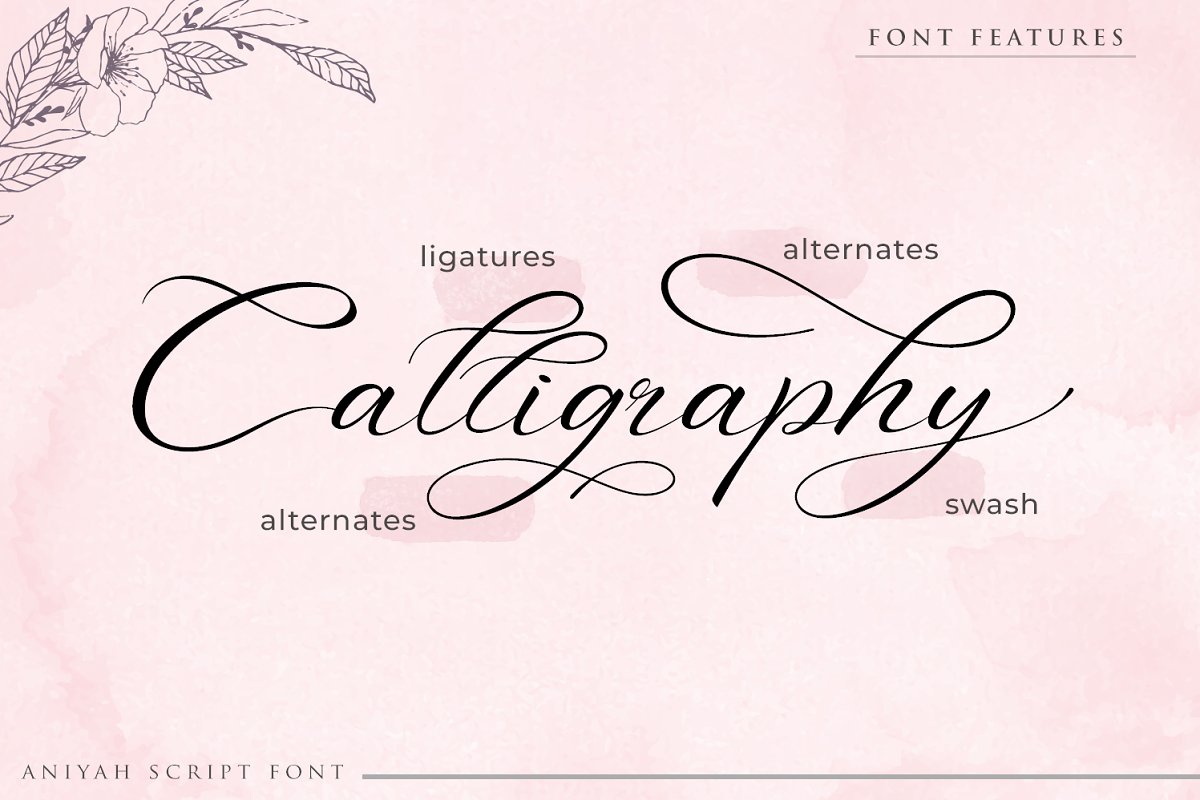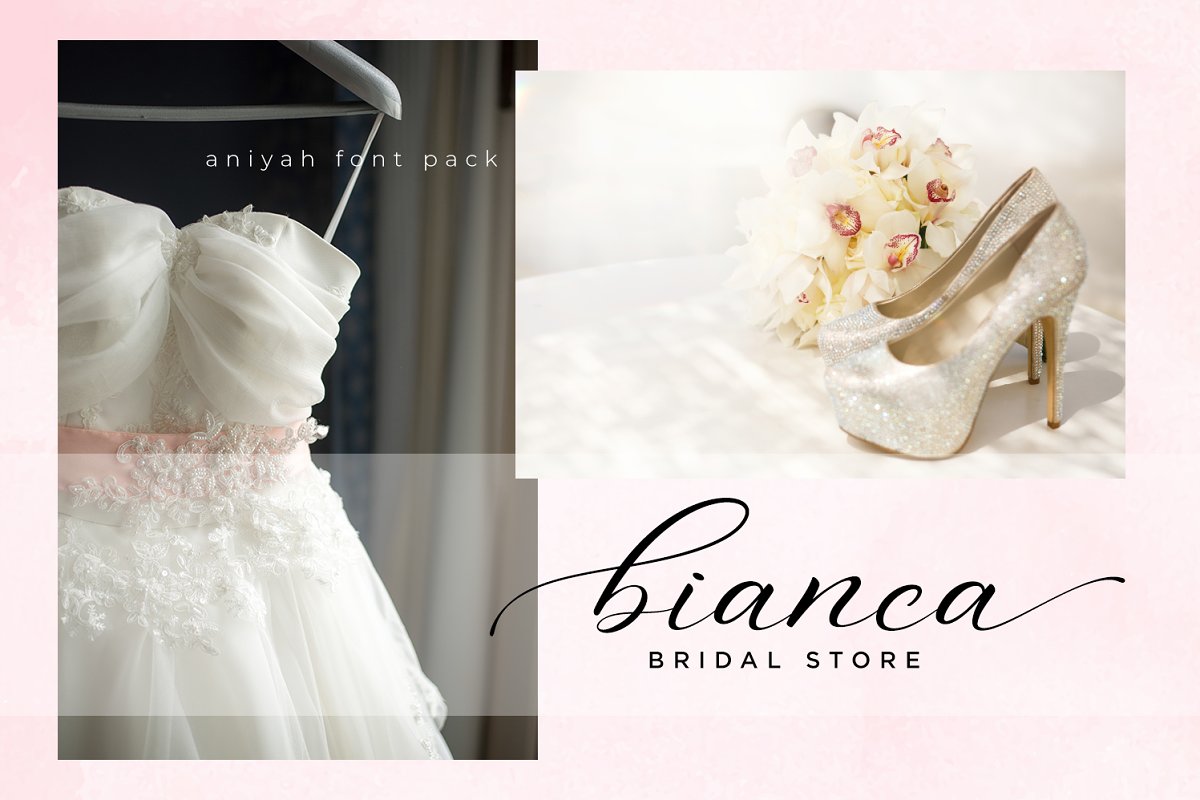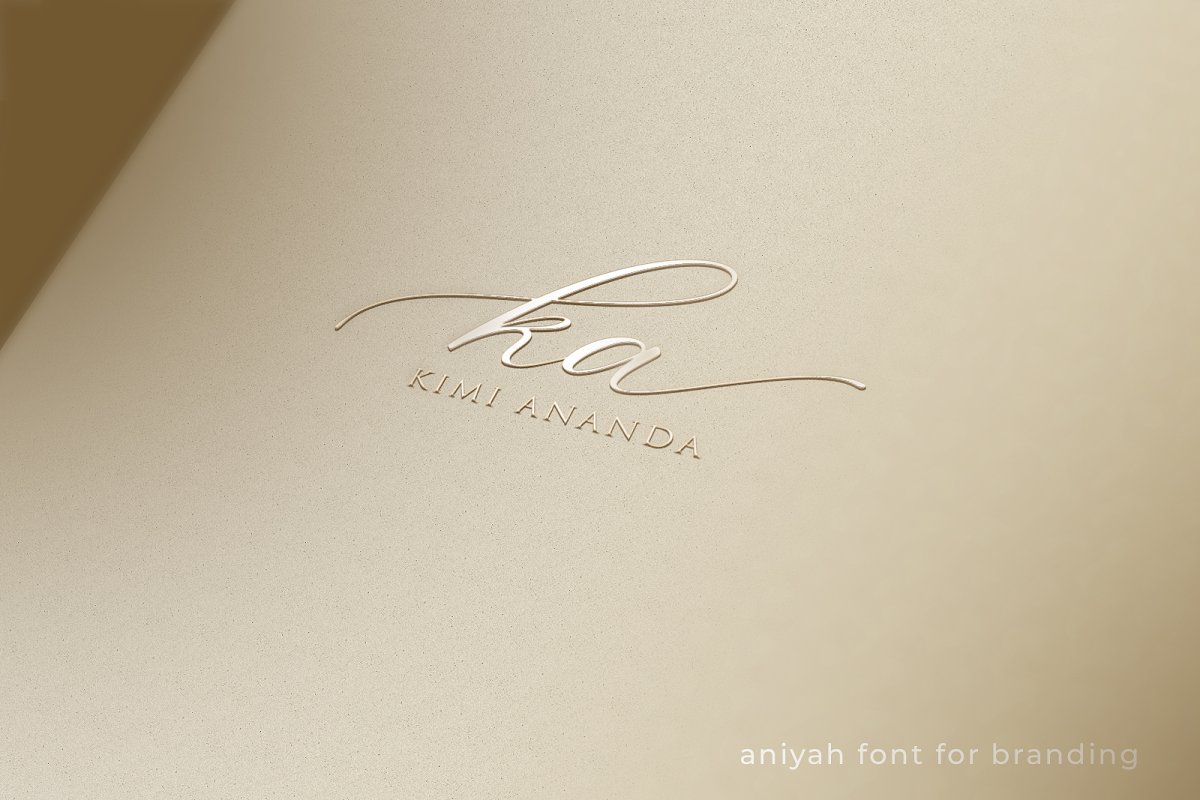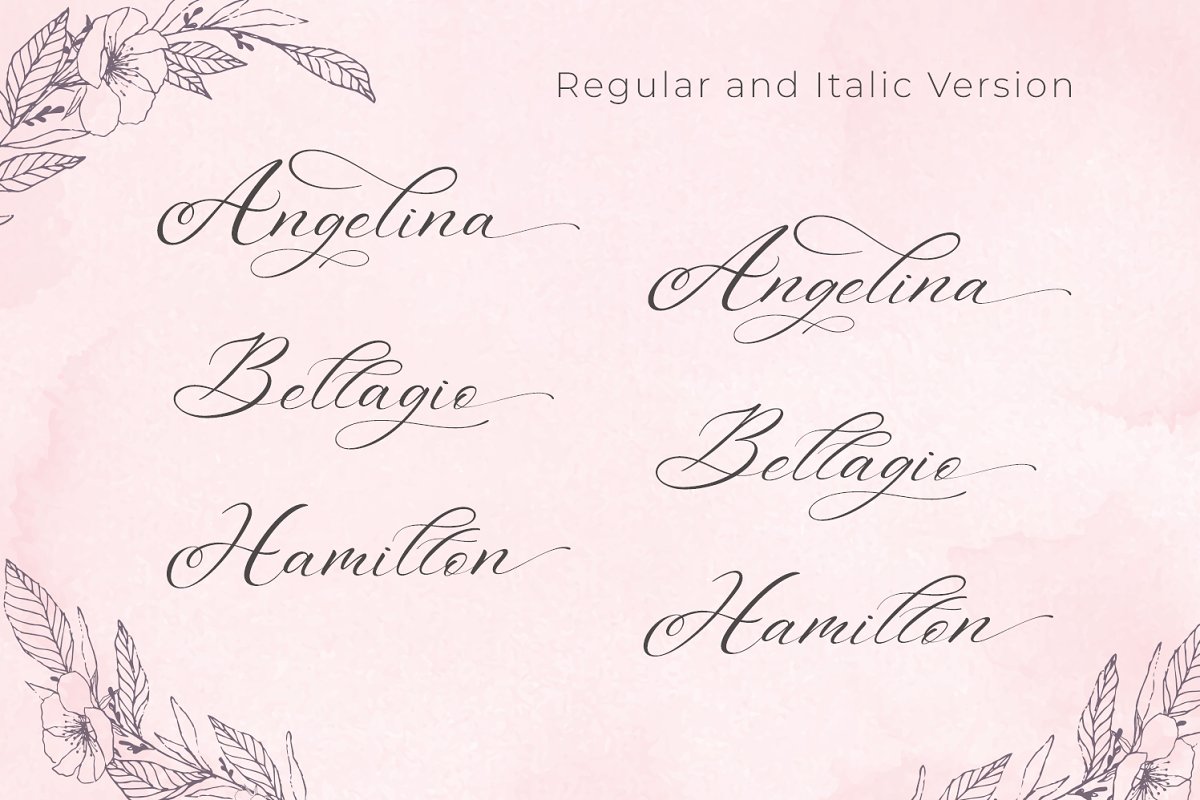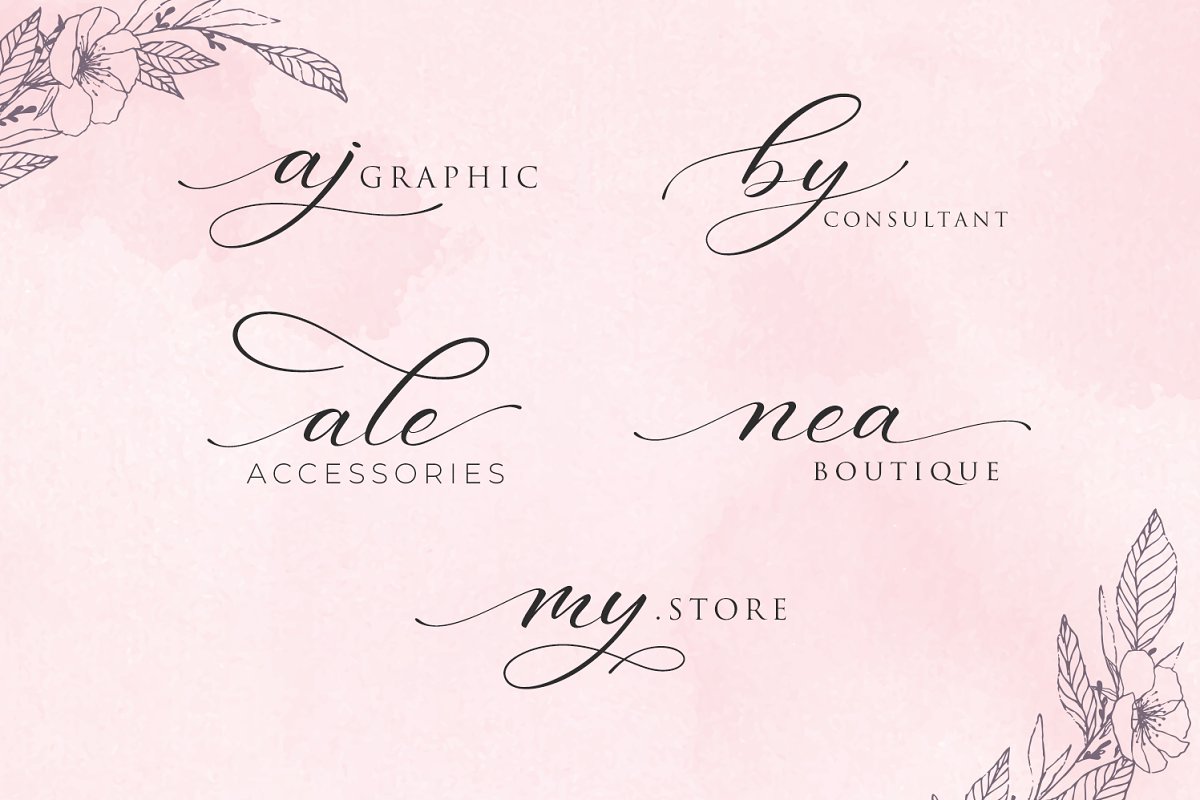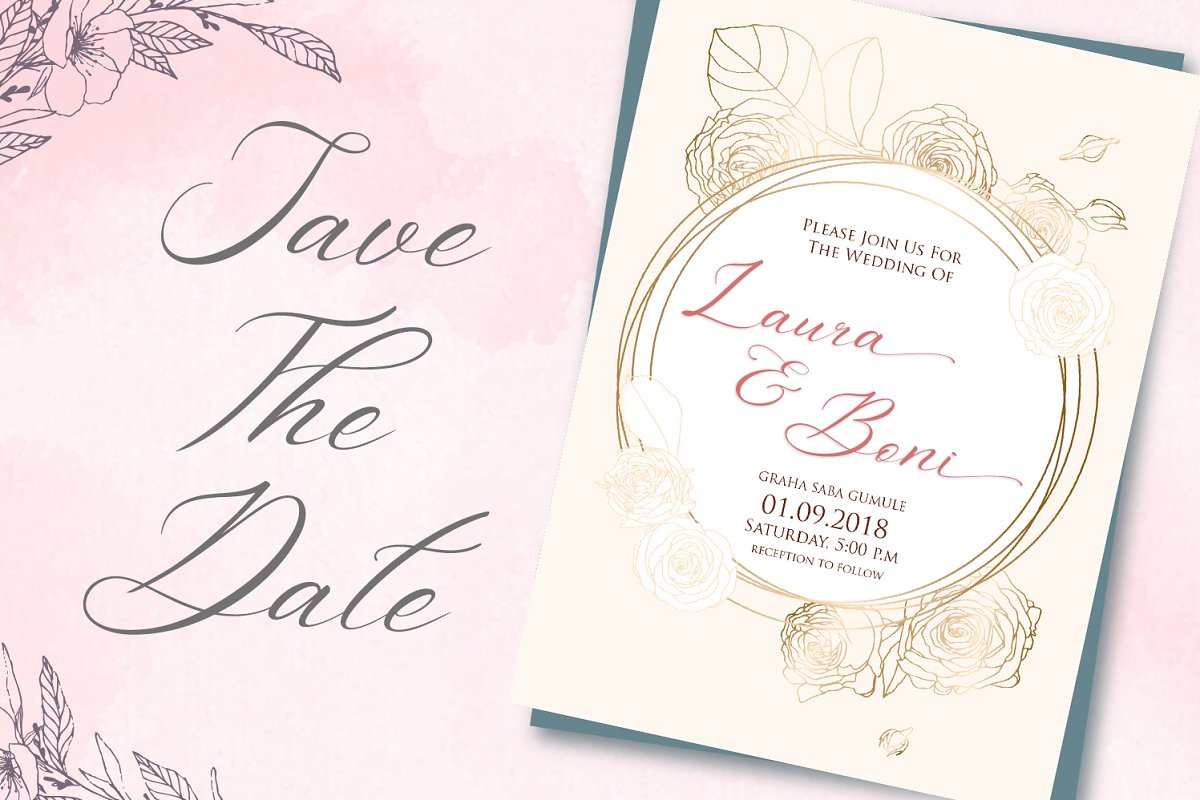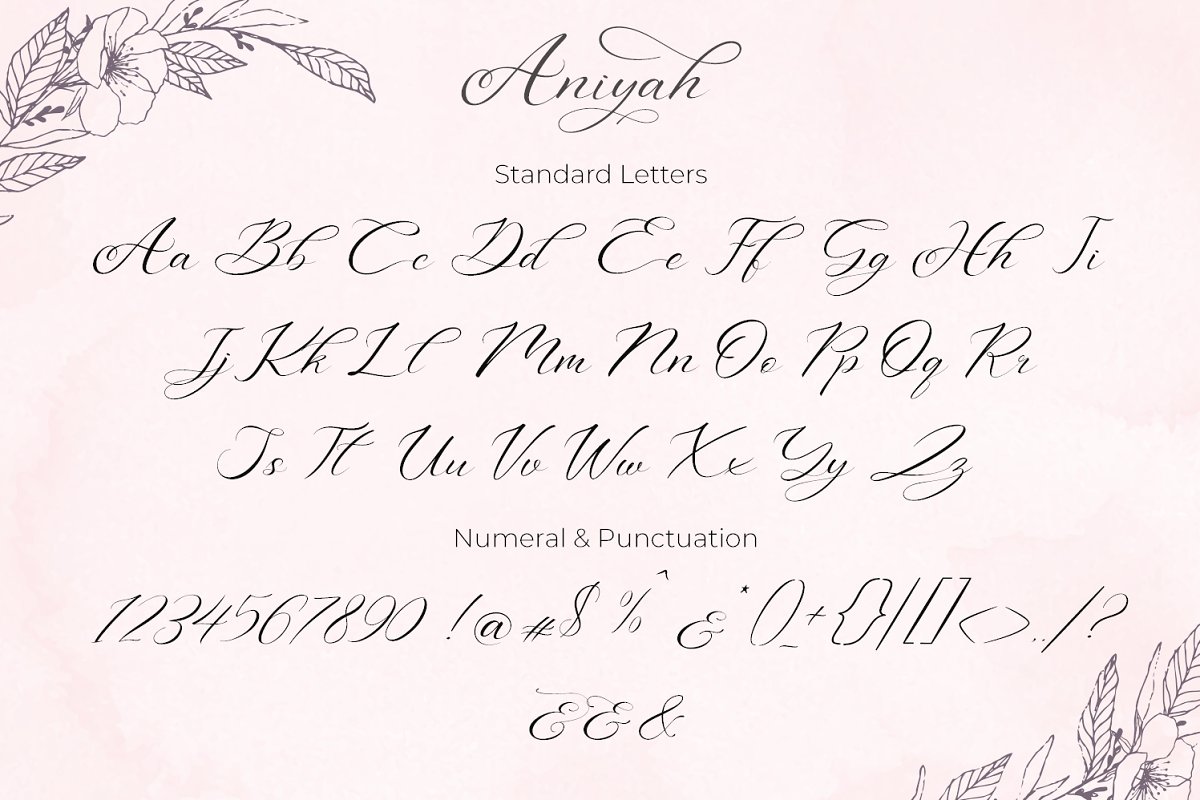
About the Aniyah Script Calligraphy Font
Find out more ways to use this font by taking a look at the font preview, Whats include ? :Aniyah Script Regular version (OTF,TTF,WOFF)Aniyah Script Italic version (OTF,TTF,WOFF)Aniyah Script Features : Beautiful ligatures PUA encodedMultilingual SupportNumbering & amp; Punctuation1 front swash & 2 end swash (a-z)Alternates (b,d,g,h,j,k,l,t)Notes = Every swash and ligatures have include in Aniyah Script (ttf